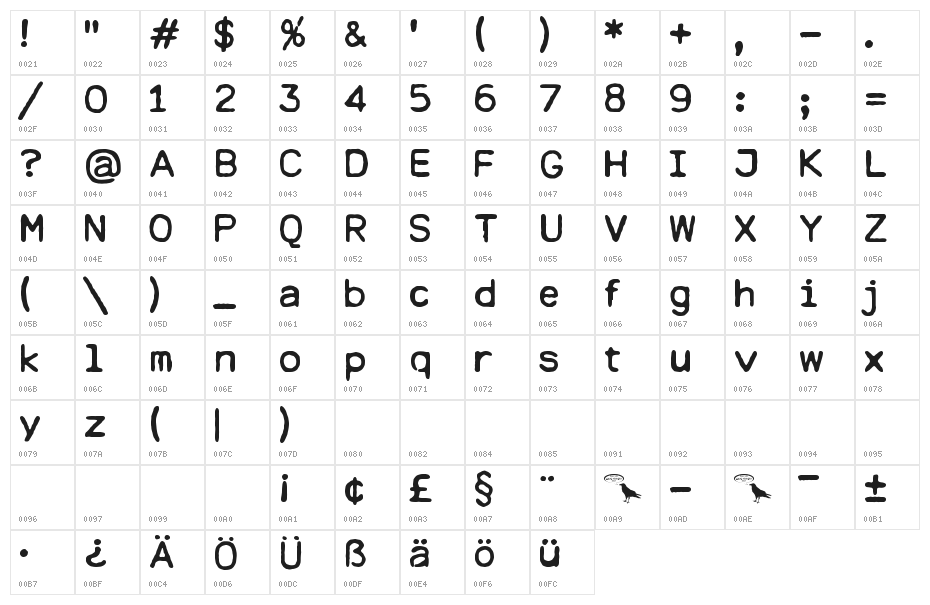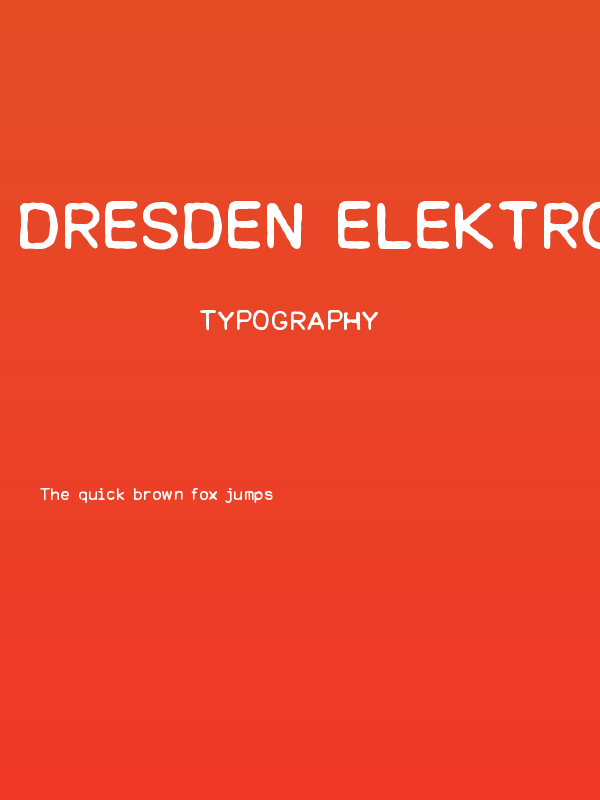
Dresden Elektronik Font
Dresden Elektronik Description
This font exhibits a playful and slightly irregular style, reminiscent of hand-drawn or stamped lettering. The characters have a rounded, soft appearance with uneven stroke widths, giving them a casual and approachable feel. The uppercase letters are bold and prominent, while the lowercase letters maintain a consistent style with slightly more variation in height and width. The numerals are clear and legible, matching the overall aesthetic of the alphabet. Special characters are well-integrated, maintaining the same quirky and informal design. This font's unique character makes it suitable for projects that require a personal touch or a sense of whimsy.
| Proposed Projects | Ideal for children's books, casual invitations, playful branding, or any project needing a whimsical touch. |